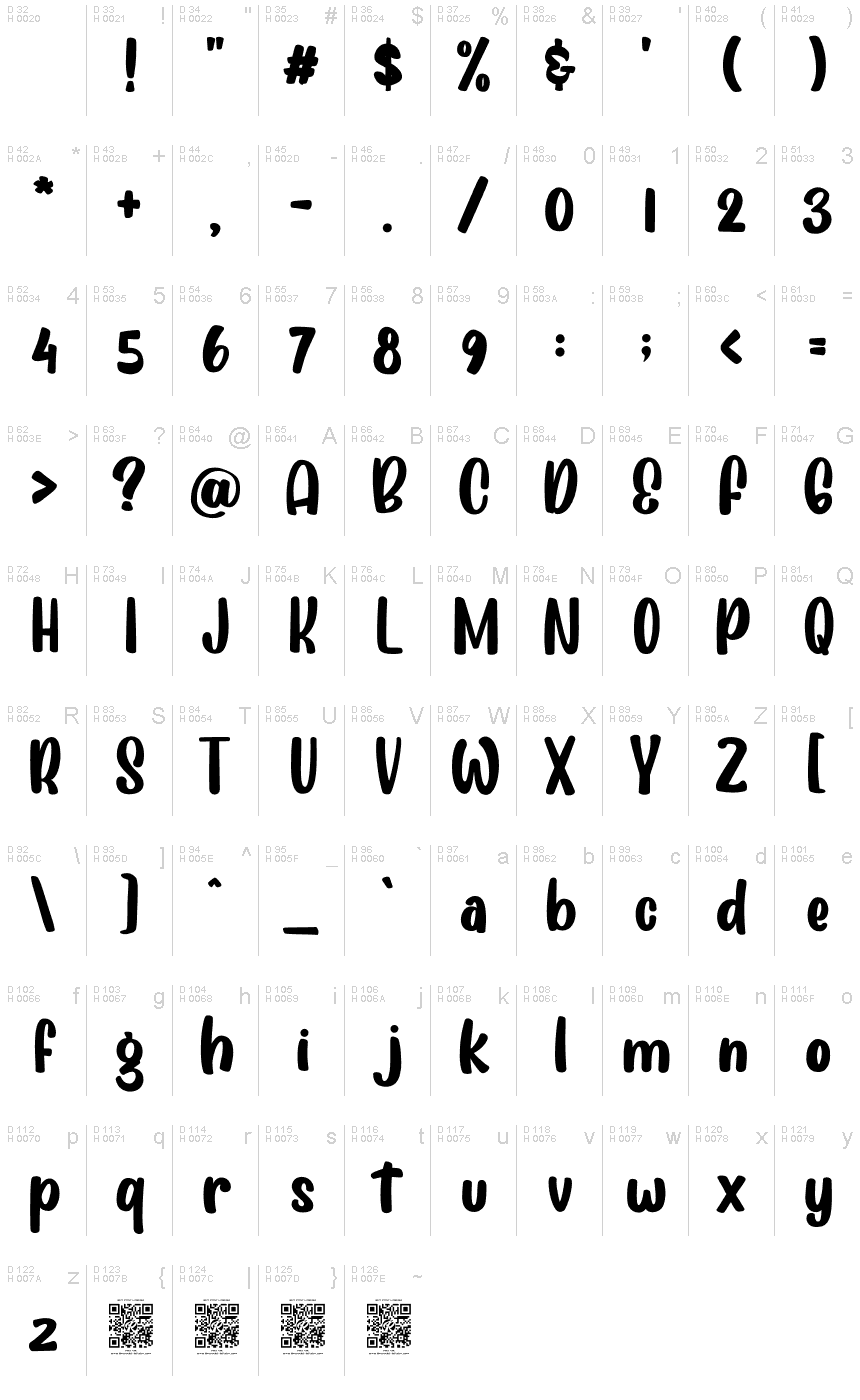
Cherry Bird Demo
Cherry Bird, designed by Rochart Studio, is a playful display font that adds a touch of whimsy to any project. With its semi-bold weight and cartoon-like style, Cherry Bird is perfect for children's book covers, invitations to kids' parties, or even quirky logos. The playful nature of this font makes it ideal for anything that needs a little bit of fun injected into it! Whether you're designing posters or creating social media graphics, Cherry Bird is sure to make your content stand out. Bring your projects to life with the joyful energy of Cherry Bird today!